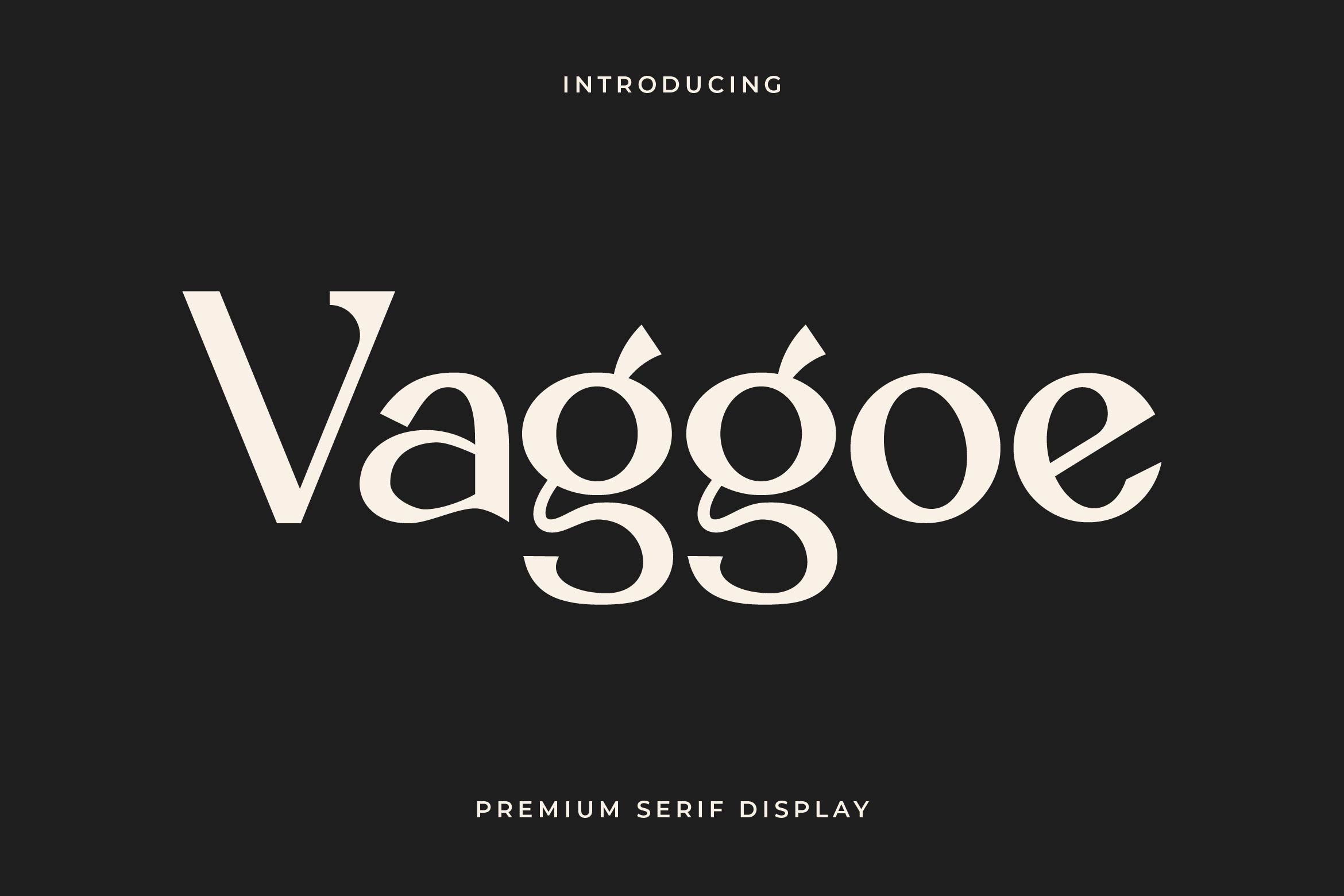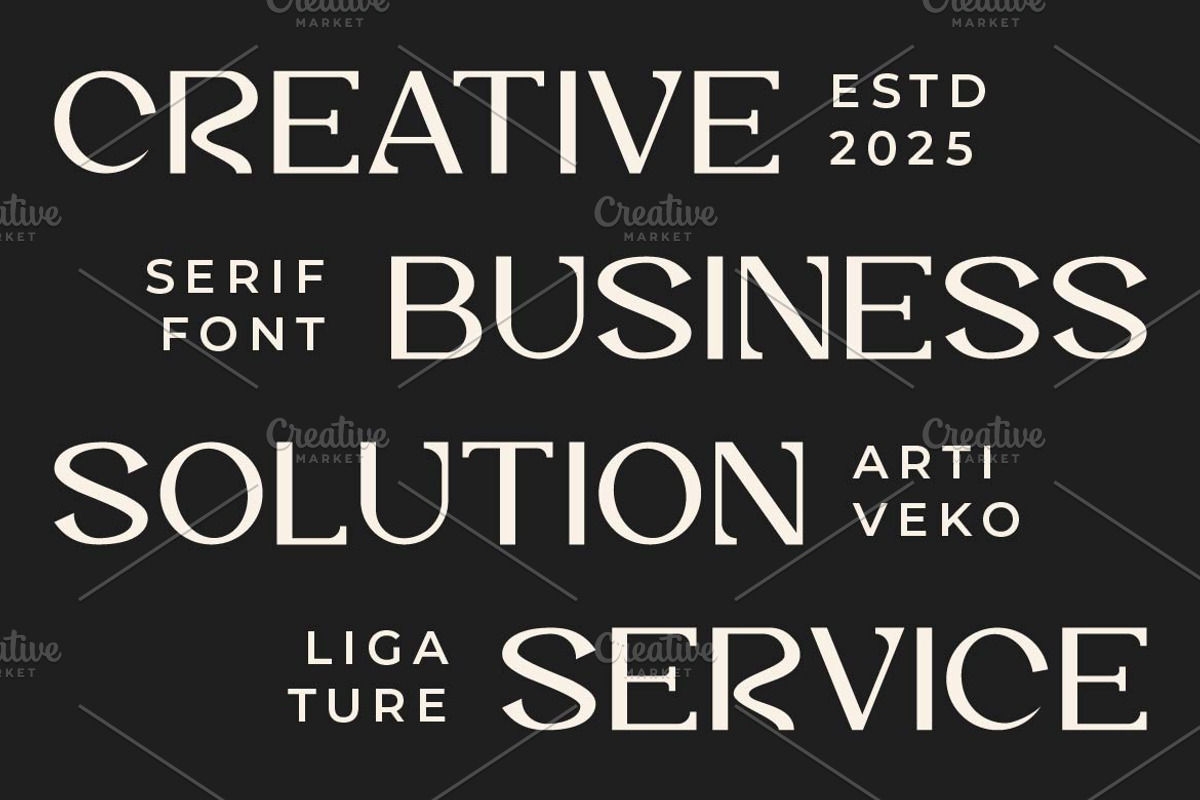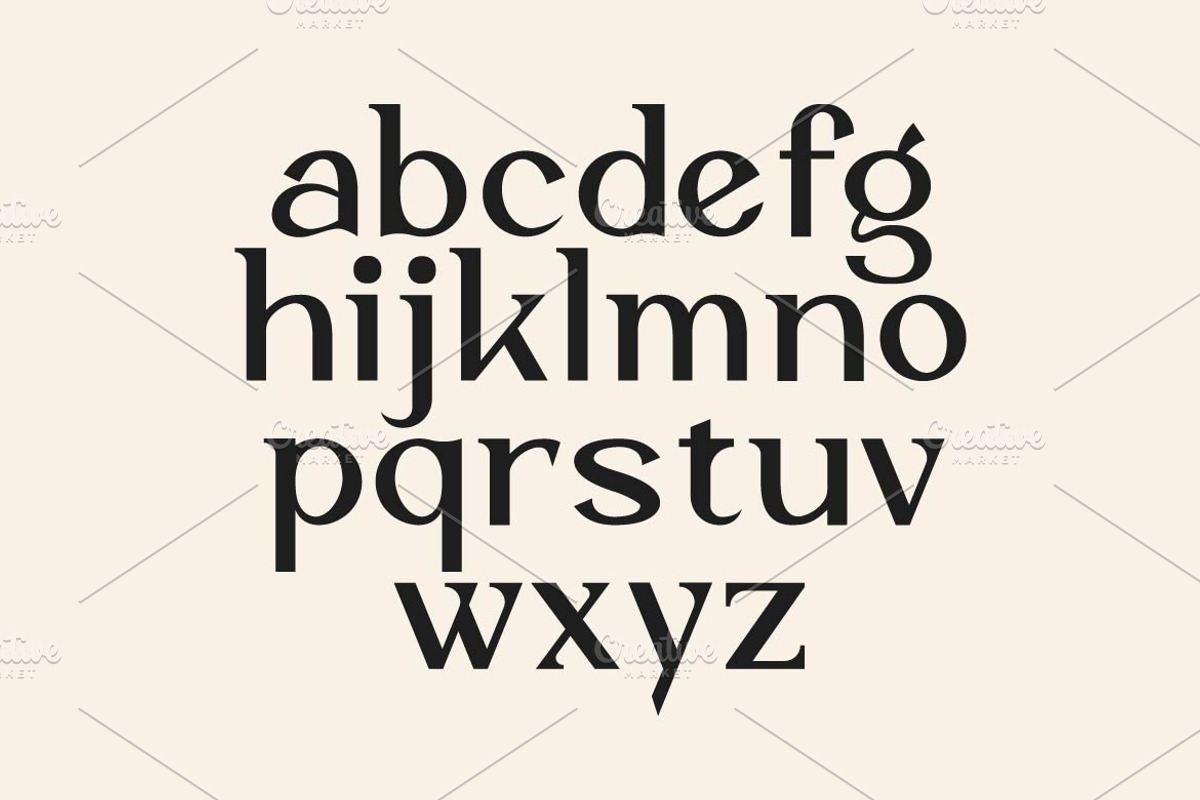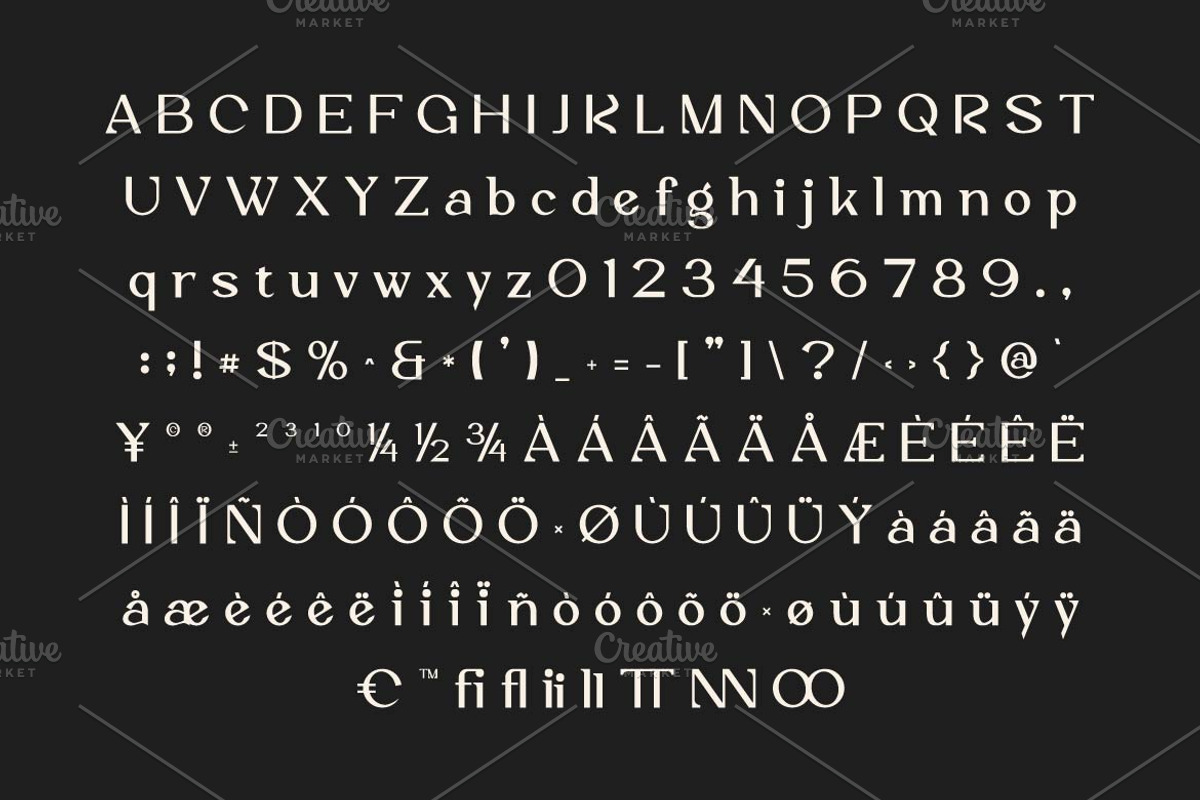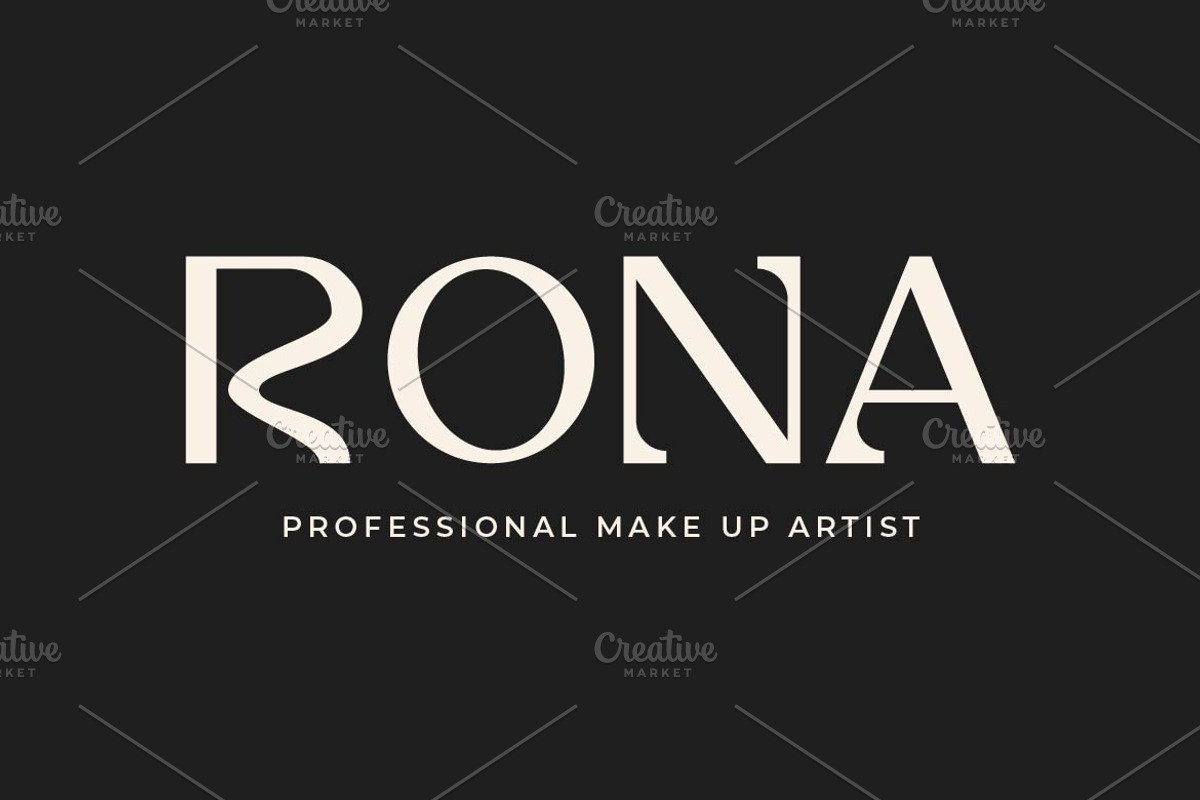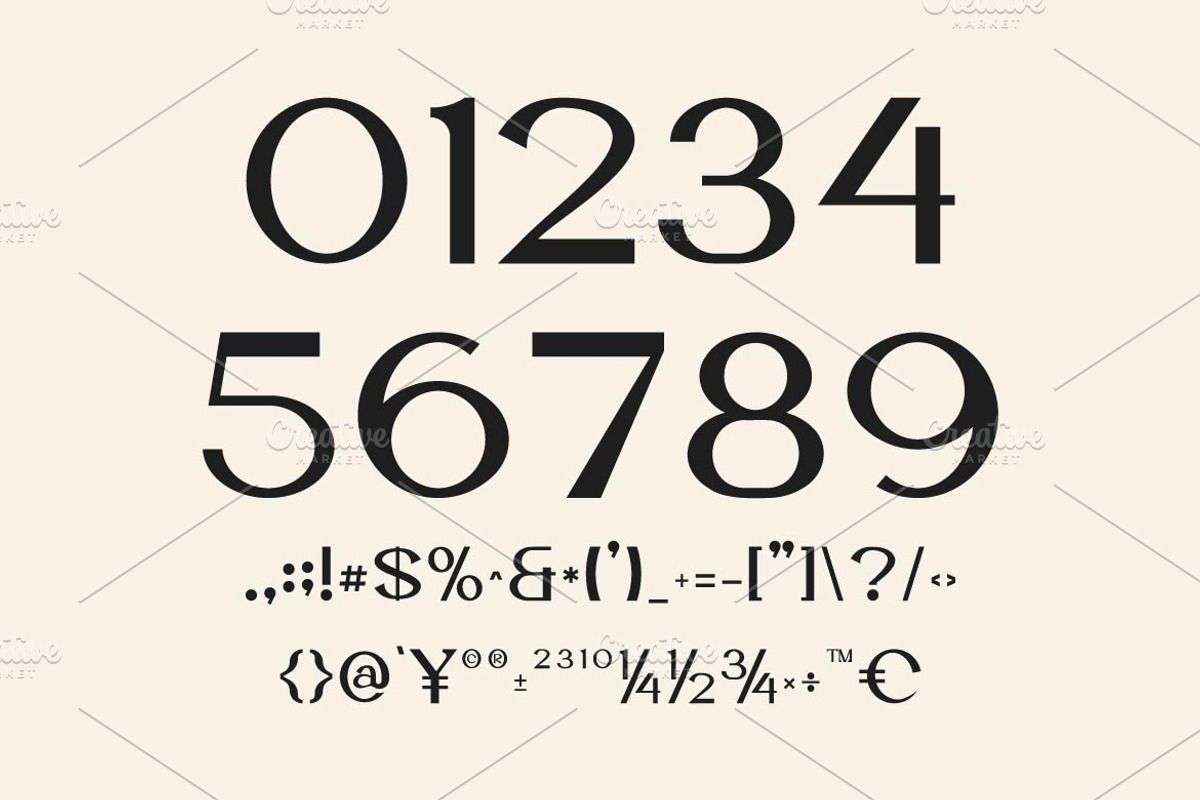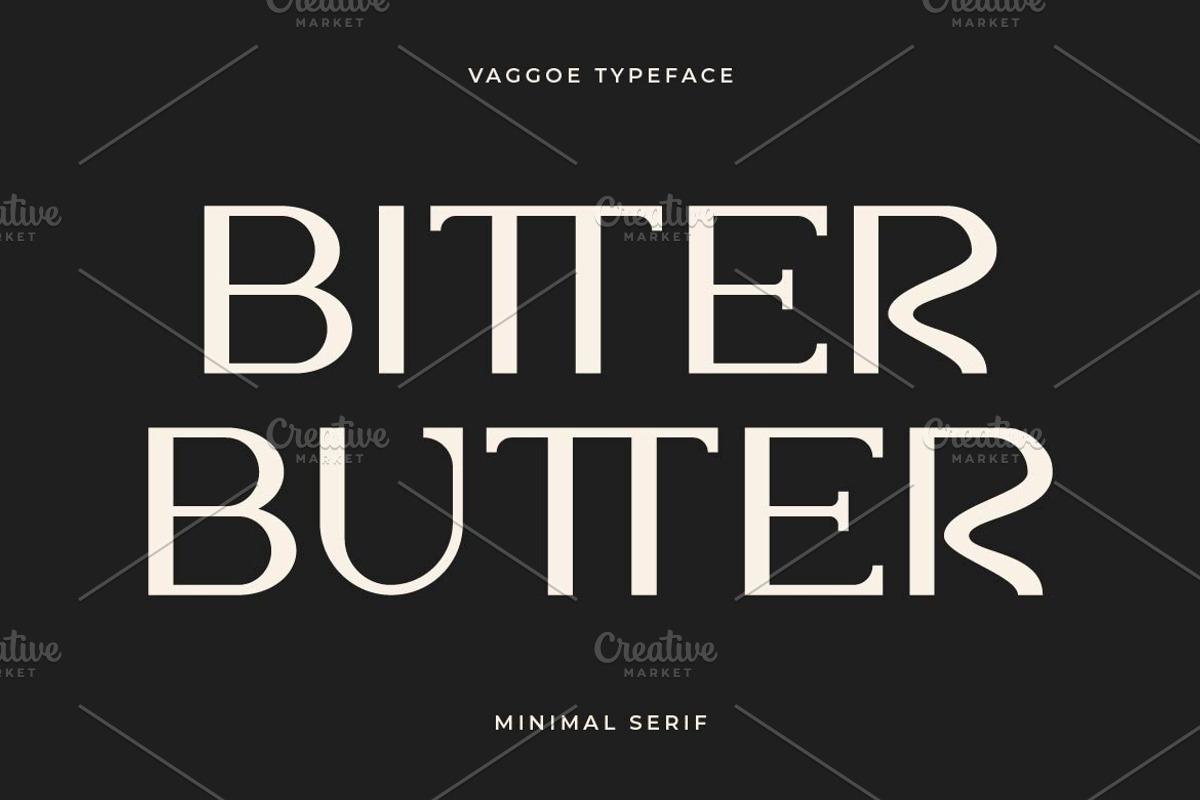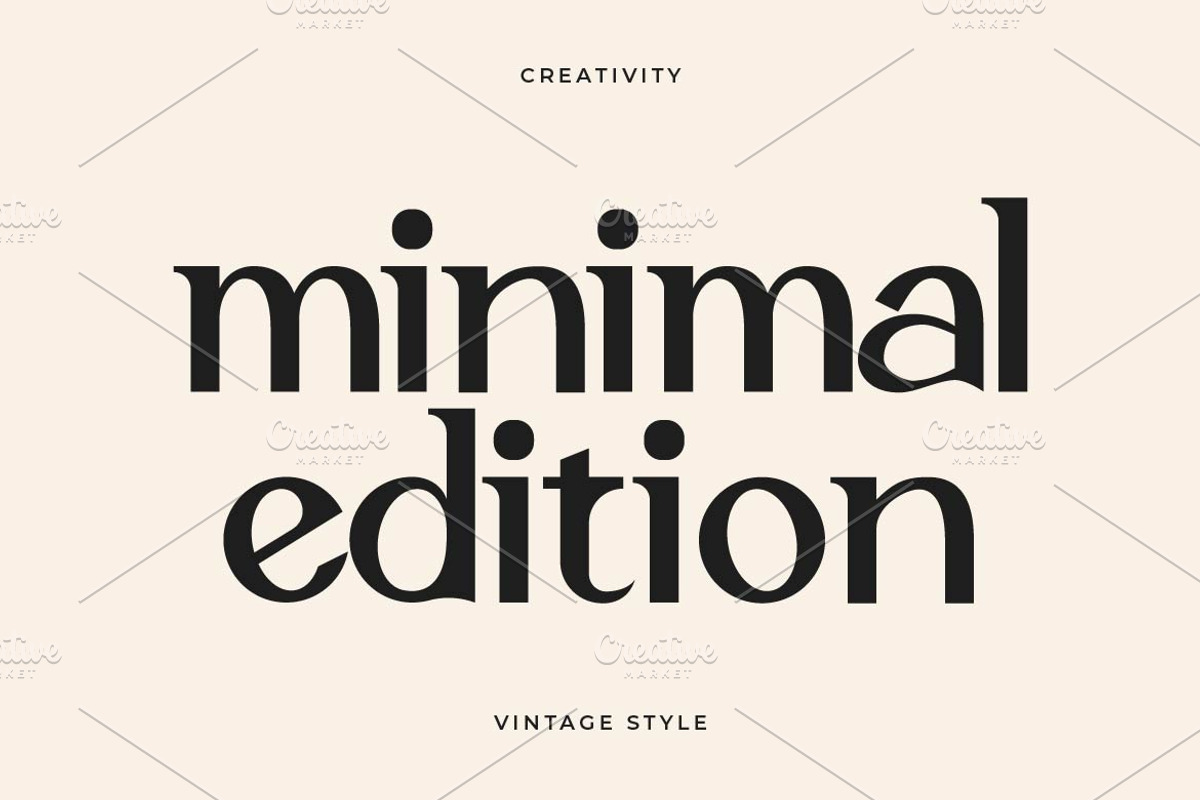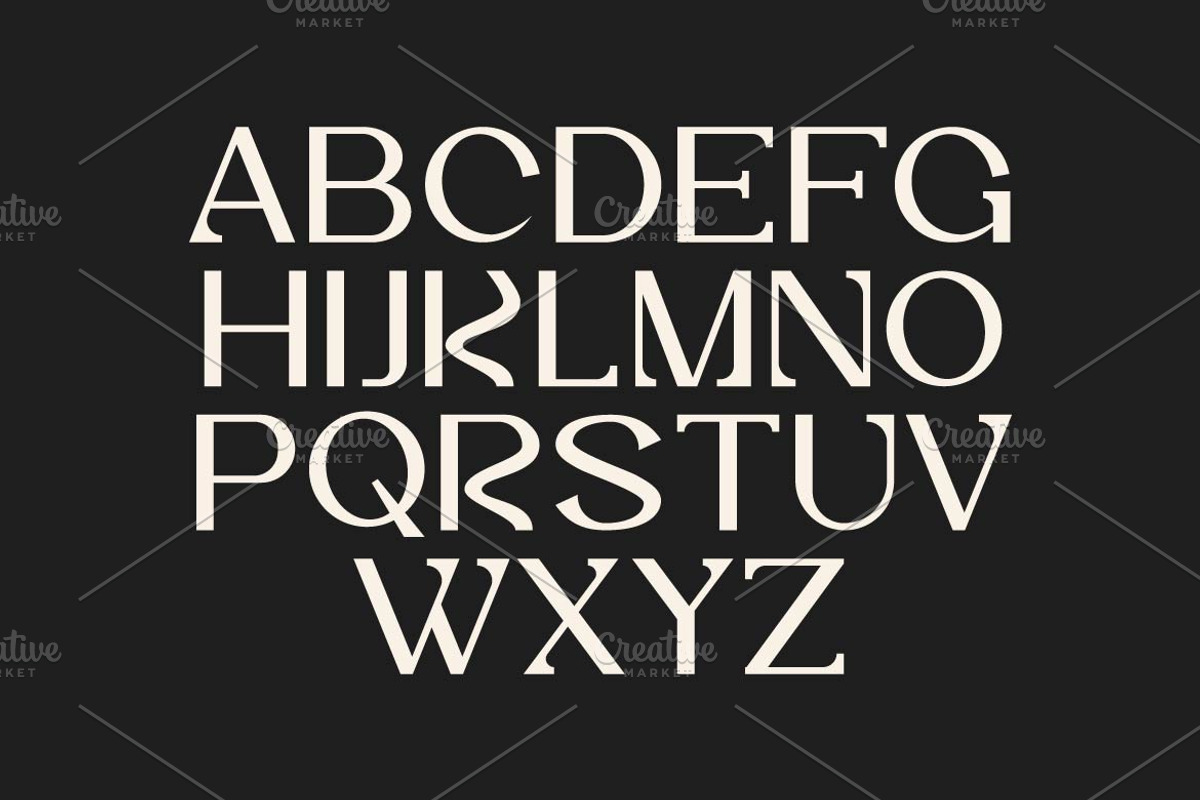
Vaggoe Elegant Serif Font
Vaggoe is a minimalist serif font that blends elegance with simplicity. Its clean serifs and refined curves offer a timeless look, perfect for editorial layouts, branding, invitations, and packaging. With multilingual support, ligatures, and alternates, Vaggoe adds a subtle sophistication to any design, making it ideal for those who seek modern minimalism with a classic touch.